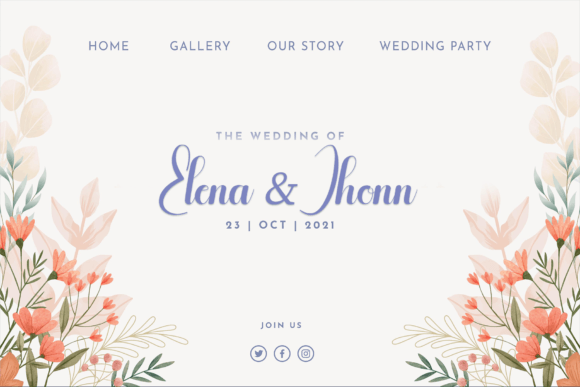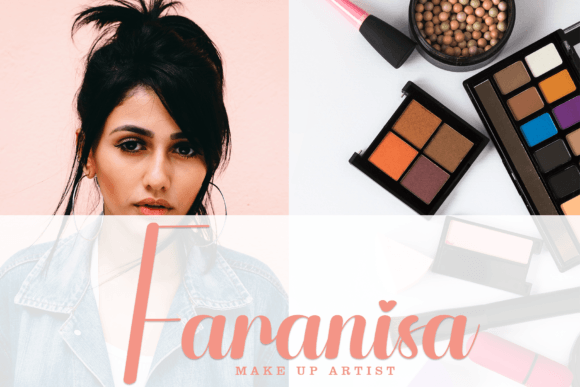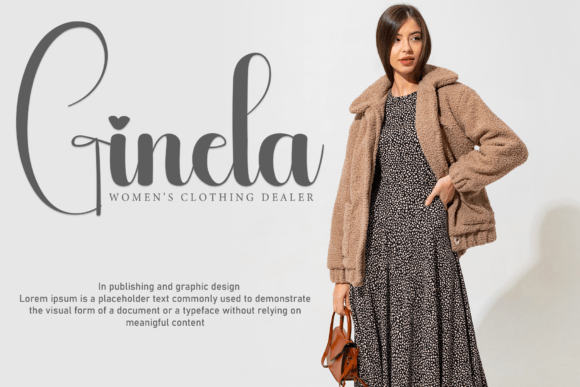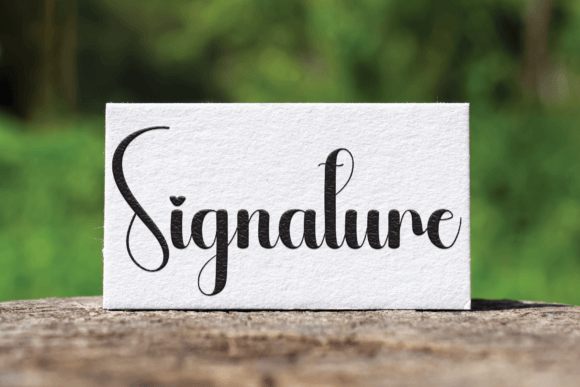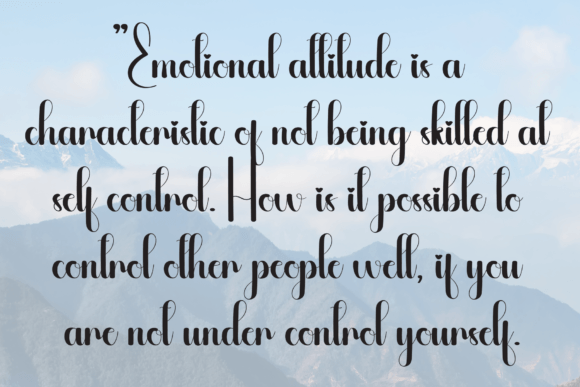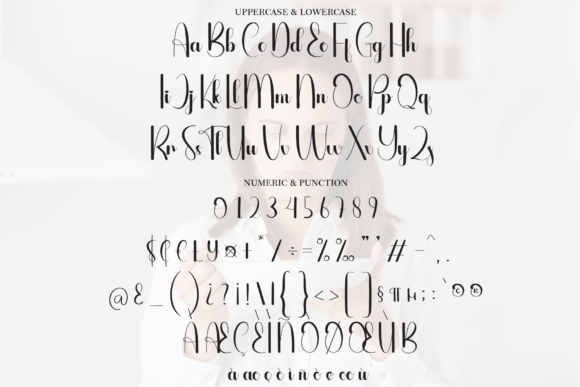
The Sweet Spot: Discovering Blander Font
I still remember the time I was working on a wedding invitation project, and I just couldn’t find the right font to capture the warmth and playfulness of the couple’s personalities. I scrolled through page after page of Google Fonts, tried out a few popular ones, but nothing seemed quite right. That’s when I stumbled upon Blander Font, and it was love at first sight! 💕
Blander is a sweet and friendly handwritten font that’s perfect for adding a fun touch to any design project. In this article, I’ll share my honest review of Blander, a step-by-step guide on how to use it on different platforms, and some similar font alternatives you might love.
An Honest Review of Blander Font
- ✅ Fresh and neat design that’s perfect for wedding invitations, cards, and more
- ✅ Sweet and friendly vibe that’s sure to capture the personality of your design
- ✅ Great for both digital and print designs
- ⚠️ Limited character set compared to some other fonts
- ⚠️ May not be the best choice for very formal or corporate designs
Exploring OpenType Features: Glyphs and Stylistic Alternates
One of the best things about Blander font is its OpenType features. With glyphs and stylistic alternates, you can add some extra personality to your design. For example, you can use:
- S stylistic alternates to change the look of certain letters or numbers
- Glyphs to add decorative elements like swashes or flourishes
The Story Behind Blander Font
Blander font was designed with love and care by a talented font designer who wanted to create a font that’s both sweet and friendly. The designer’s inspiration came from traditional handwritten fonts, with a modern twist to make it fresh and unique.
Q: Is Blander font suitable for body text?
A: While Blander font is highly legible, it’s best suited for headings, titles, or short paragraphs. For body text, you may want to choose a more traditional font.